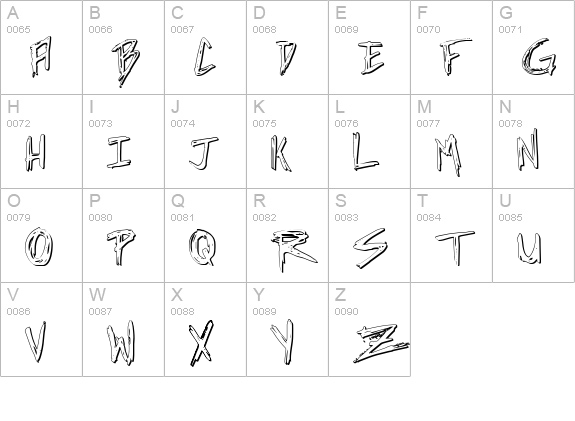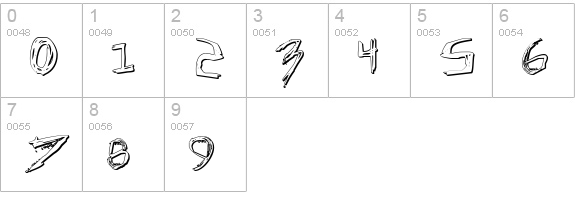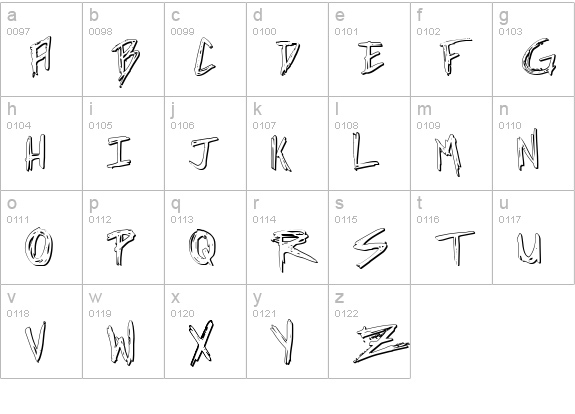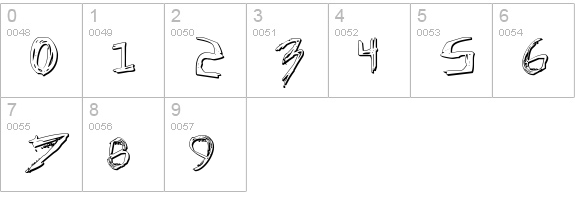
Incubus Shadow Font Details
The Incubus Shadow font is a striking and bold typeface that exudes a mysterious and alluring presence. Its intricate design features sharp edges and dramatic shadows, giving it a unique and captivating aesthetic. Perfect for adding a touch of intrigue to your designs, this font is ideal for headlines, titles, and branding projects. The best part? The Incubus Shadow font is completely free to download at FontsMarket.com. With just a few clicks, you can add this eye-catching font to your collection and start using it in your projects right away. Don't miss out on this amazing opportunity to enhance your designs with the captivating Incubus Shadow font.